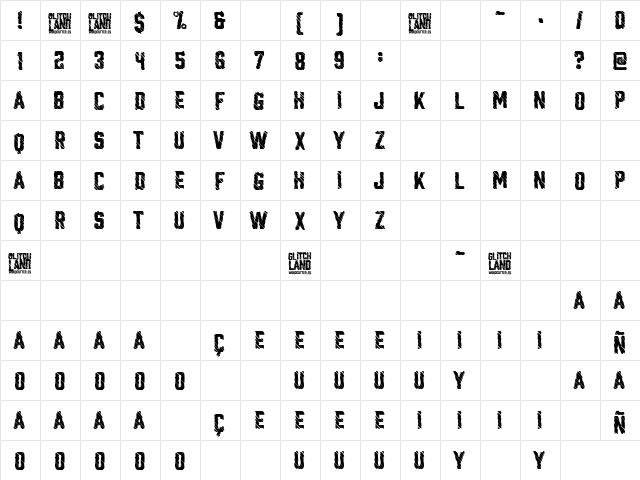
Glitchland Regular Font Preview
Glitchland Regular
Glitchland Regular Font Details
Design Context for Glitchland Typeface
Glitchland is a composed and adaptable typeface that performs quietly and consistently across a wide range of design contexts.